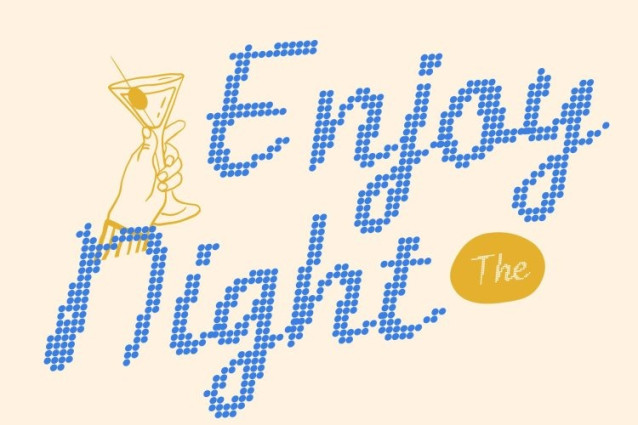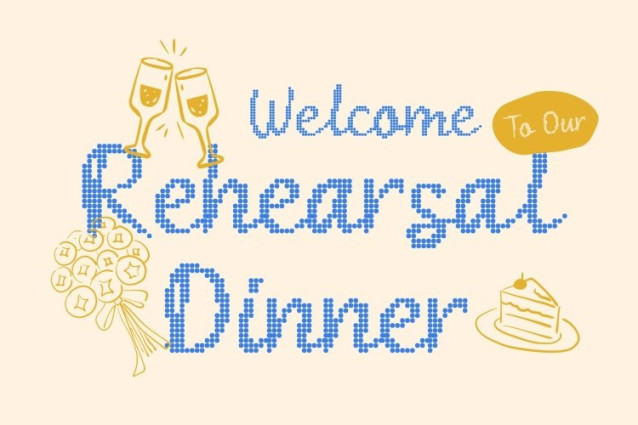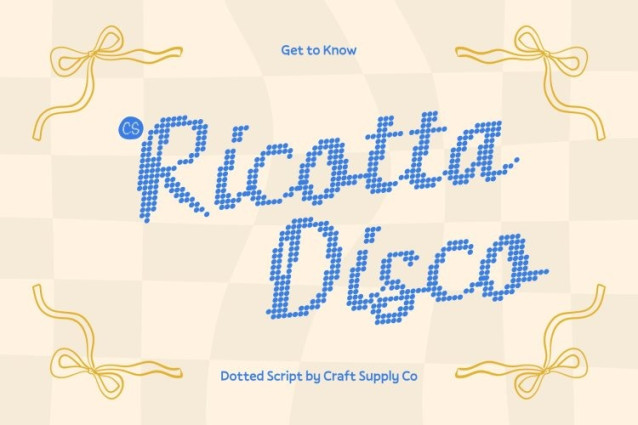
CS Ricotta Disco Font
CS Ricotta Disco Font – This Dot transforms the graceful, flowing script into a lively, dotted display that radiates energy and fun. Each stroke is made up of playful dots, creating a shimmering, sparkling effect reminiscent of disco lights reflecting across the dance floor. It keeps the elegance of the original handwriting while injecting a vibrant, celebratory personality.
Energetic and Cheerful Feel
With its dotted texture and dynamic curves, this font captures the excitement of a glamorous party scene. The flowing dots create motion and rhythm, giving every word a sense of movement and life. Perfect for projects that need a cheerful, upbeat, and joyful typographic voice.
Ideal for Party-Themed Designs
This font Dot shines in applications that celebrate fun and festivity. Use it for event posters, dance nights, club promotions, music covers, social media graphics, or invitations that aim to feel playful and glamorous. Its dotted style turns typography into a sparkling visual centerpiece.
Glamorous and Memorable
The combination of handwritten elegance with disco-inspired dot detailing ensures every design stands out. It’s a font that balances sophistication with exuberance, delivering a unique, stylish, and energetic statement that feels both chic and festive.